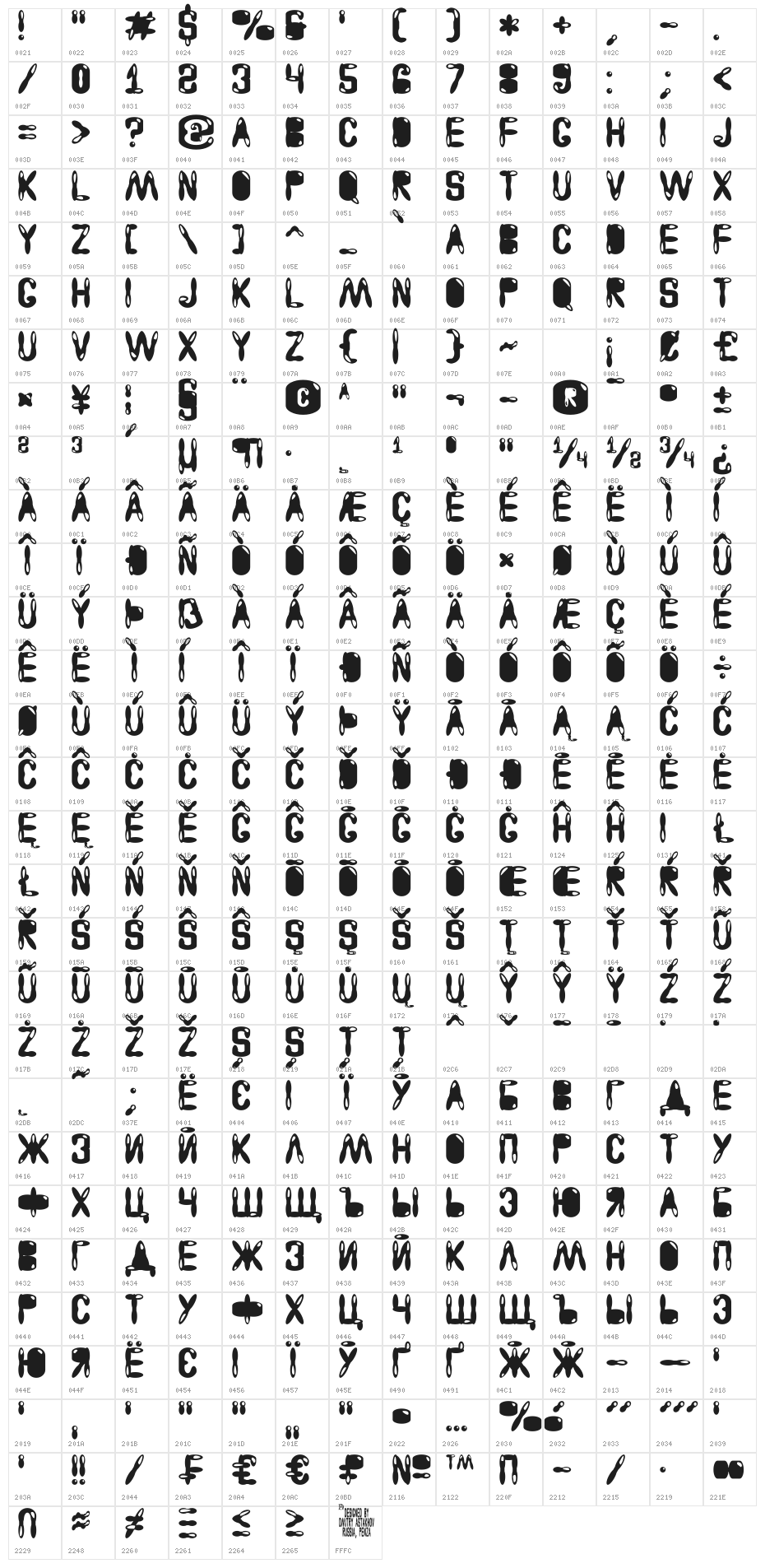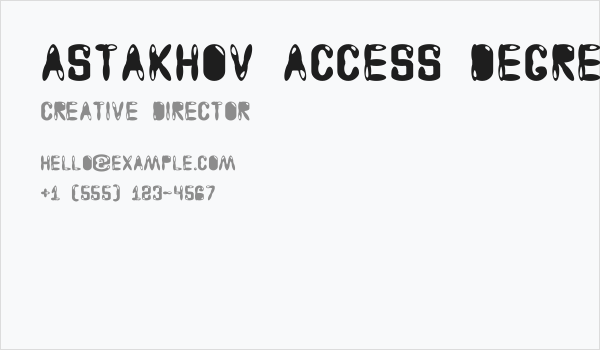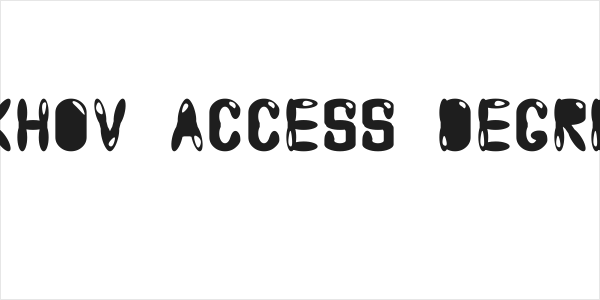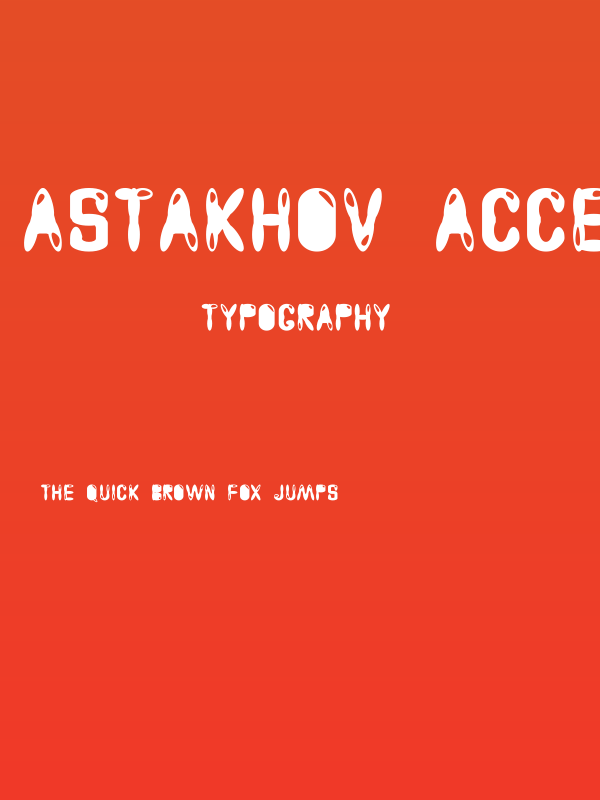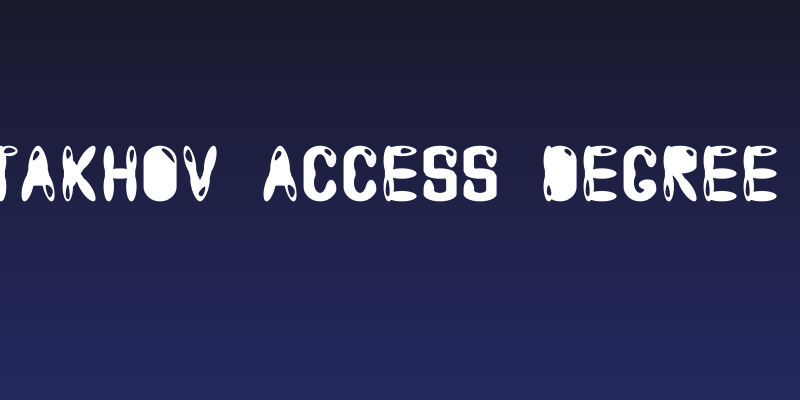
Astakhov Access Degree GF Font
Astakhov Access Degree GF Description
This font features a bold and playful design with a unique, organic appearance. The characters are rounded and filled with irregular, blob-like shapes that give it a whimsical and artistic feel. The uppercase and lowercase letters maintain a consistent style, with each character exhibiting a distinct, fluid form. The numbers and special characters follow the same playful design, ensuring a cohesive look across all elements. This font stands out with its high contrast and thick strokes, making it ideal for eye-catching designs.
| Proposed Projects | Ideal for creative projects such as children's books, playful branding, posters, and artistic designs. |